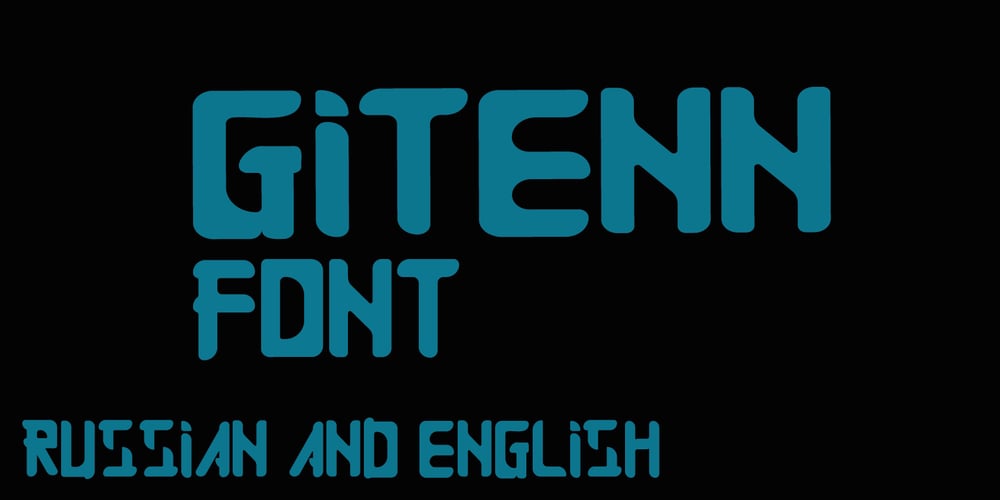
Gitenn
Gitenn font
Gitenn Font Family was designed by Steermax and published by SteerFonts. Gitenn contains 1 styles and family package options. Gitenn – is a font that you can use in your projects and features both Latin and Russian alphabets. I did it cheap enough that anyone with a couple bucks could buy it. I think that anyone who wants to buy a font wants it to be unique, and most fonts are of the same type, so I made it extraordinary and beautiful.